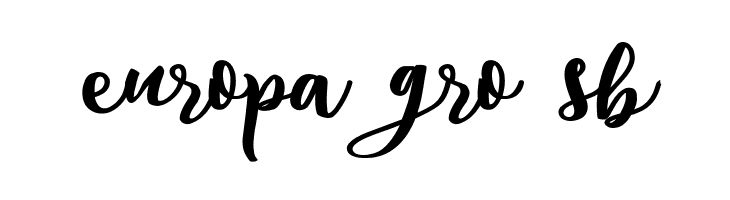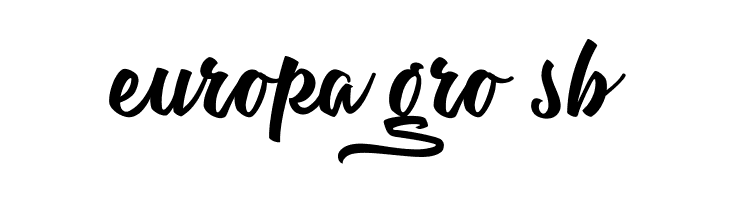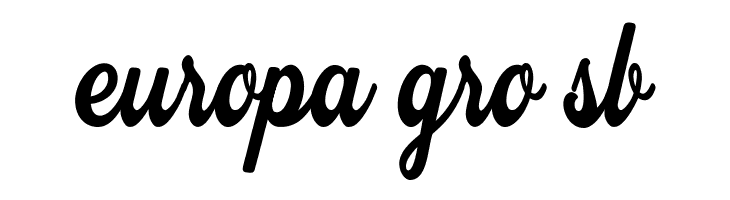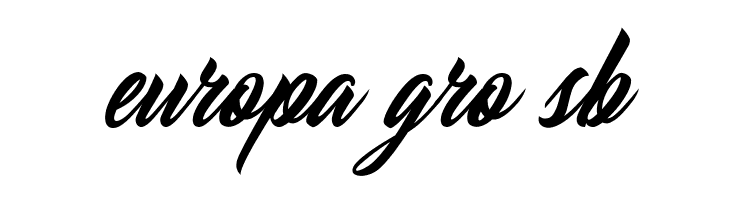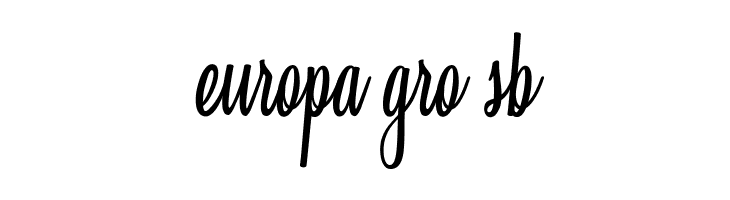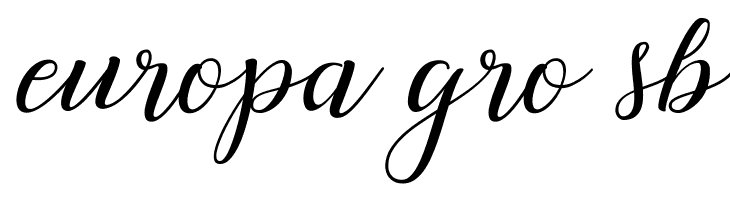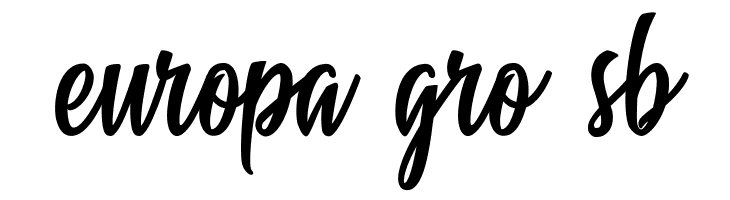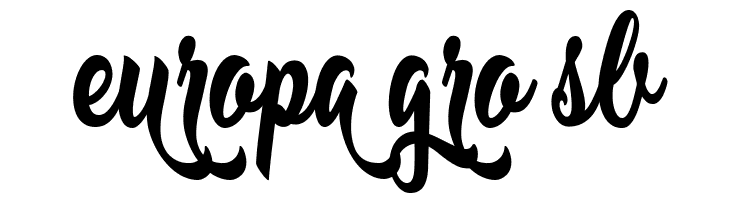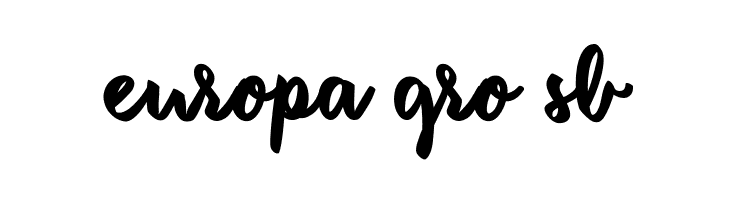
A cursive, hand-drawn font with elegant loops and swashes.
A bold, cursive font with decorative loops and high contrast, perfect for artistic projects.
A bold, expressive script font with flowing, cursive letterforms.
A bold, decorative script font with flowing, cursive design.
A cursive, elegant script font with flowing lines and sophisticated style.
A dynamic and flowing script font with elegant, elongated letterforms.
An elegant and flowing script font with decorative swashes and heart accents.
A bold, cursive font with interconnected letters and a handwritten style.
A bold, flowing script font with elegant curves and a classic calligraphic style.
A lively and energetic script font with bold, flowing cursive forms.